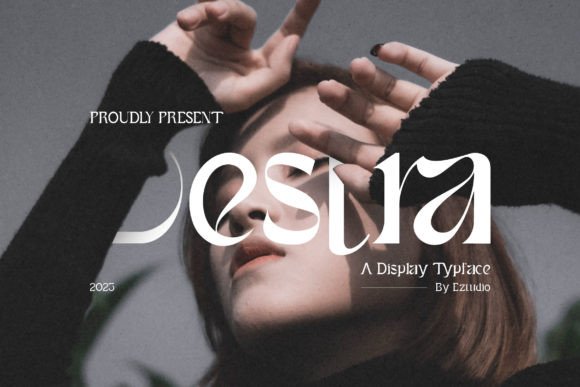
Looking for a font that can give your design project a classy and modern look? Look no further than Destra Font, the decorative display font created by eztudio. Destra Font is the perfect solution for those looking to add a touch of luxury to their designs.
Destra Font is a versatile font that can be used for a wide range of design projects. Whether you're creating a logo, branding, invitations, stationery, wedding designs, or social media posts, Destra Font has you covered. With its flexible capabilities, it can add an extra layer of sophistication to any design project.
What makes Destra Font so special is its ability to give any design project a luxurious feel. It's a font that oozes elegance and class, perfect for those looking to make a statement. It's the ideal font for businesses looking to elevate their brand image or for individuals looking to create something truly unique and eye-catching.
Destra Font is not just another run-of-the-mill font. It's a font that is packed with character and personality, making it stand out from the crowd. Its unique style is sure to capture the attention of anyone who sees it.
So if you're looking for a font that can take your design projects to the next level, look no further than Destra Font. Its flexibility, versatility, and luxurious feel make it the perfect choice for anyone looking to create something truly special.